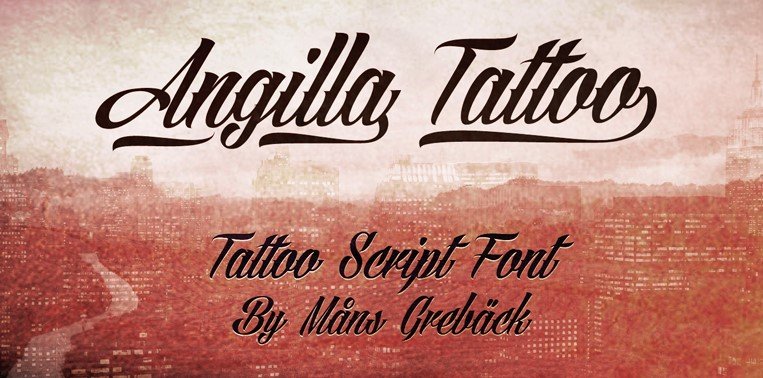
We are presenting the Angilla Tattoo Font, an impressive calligraphic script font popular among users globally. This font was crafted by the Swedish designer Mas Grebäck.
Style | Script |
Designer | Mans Greback |
What Type of Font Is Angilla Tattoo?
The Font is the famous and amazing typeface which was product of the combination efforts by Mans Greback.